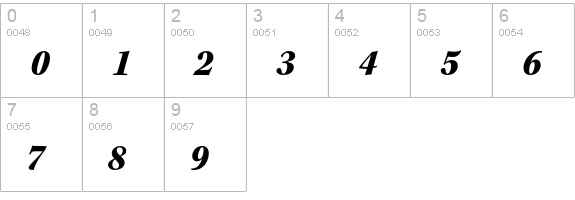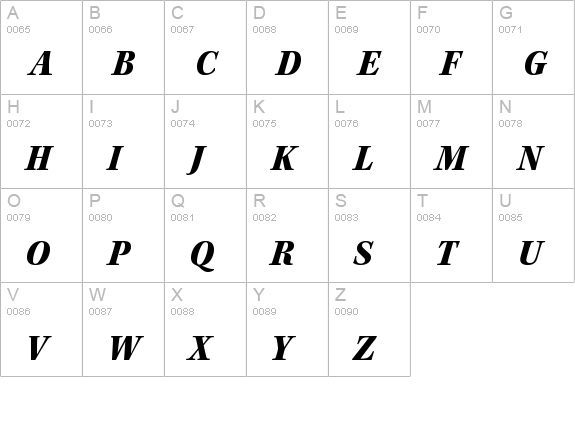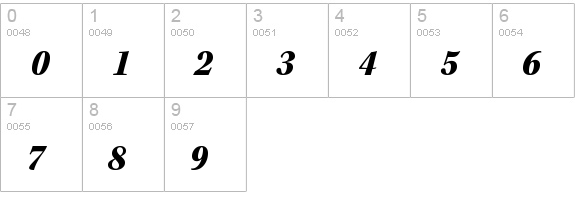
Kepler Std Black Semicondensed Italic Font Details
Kepler Std Black Semicondensed Italic is a maximum-weight, dramatic, italic variant in the Kepler typeface family \xE2\x80\x94 well suited to maximum-impact headlines, posters, and packaging.
Kepler Std Black Semicondensed Italic is a striking and bold font that demands attention with its unique blend of elegance and strength. With its slanted and condensed form, this font exudes a sense of modernity and sophistication. Designed with meticulous attention to detail, Kepler Std Black Semicondensed Italic is perfect for headlines, titles, logos, and display purposes. Its thick strokes and subtle curves make it highly legible even at smaller sizes, ensuring that your message is delivered with impact and clarity. This font is freely available for download at FontsMarket.com, providing you with the opportunity to enhance your designs without any additional cost. Whether you're a designer looking to add a touch of drama to your creations or a business owner seeking a professional and eye-catching font for your brand, Kepler Std Black Semicondensed Italic has you covered. Download this font today and experience the power and versatility it brings to your projects. With its bold and confident style, Kepler Std Black Semicondensed Italic is sure to leave a lasting impression on your audience. Don't miss out on this opportunity to elevate your designs and make a statement – get Kepler Std Black Semicondensed Italic now, exclusively at FontsMarket.com.